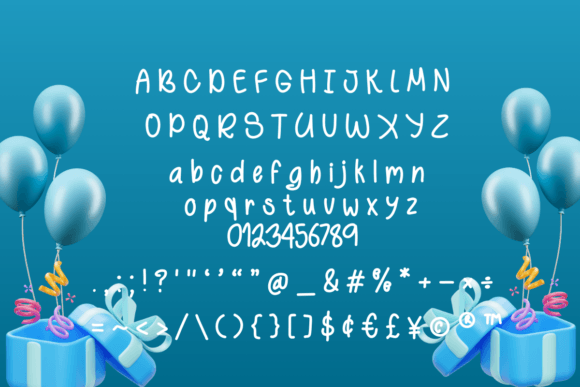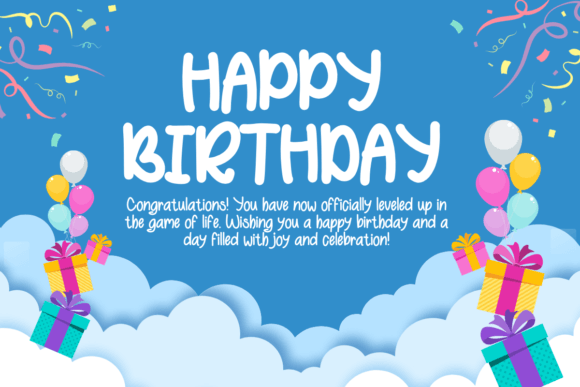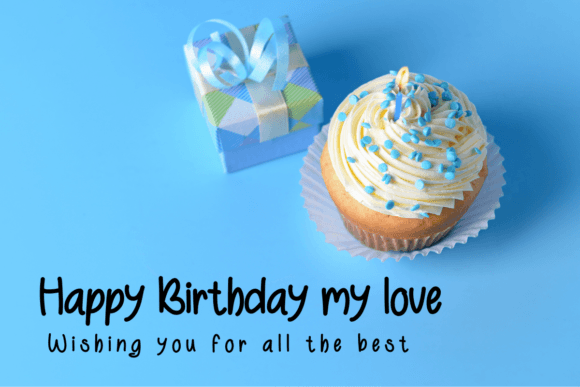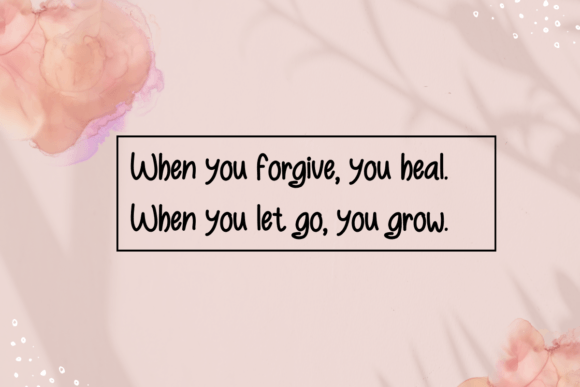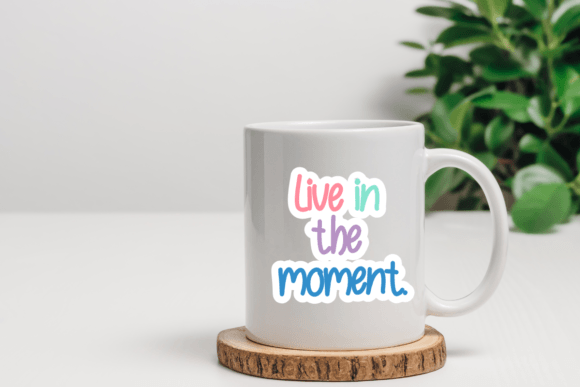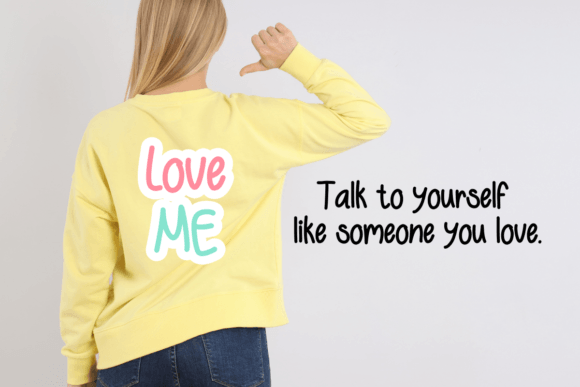
Introducing Birthday Pretty Font: The Perfect Handwritten Style for Your Creative Projects
Are you looking for a beautiful and elegant font to add a personal touch to your designs? Look no further than Birthday Pretty Font, a stunning handwritten font that’s perfect for a variety of creative projects. In this article, we’ll explore the features and benefits of Birthday Pretty Font, and show you can use it to take your designs to the next level.
What is Birthday Pretty Font?
Birthday Pretty Font is a gorgeous handwritten font that’s designed to add a touch of elegance and sophistication to your designs. With its flowing script and delicate lines, this font is perfect for creating beautiful and eye-catching text. Whether you’re a designer, crafter, or DIY enthusiast, Birthday Pretty Font is a versatile and easy-to-use font that can help you create stunning designs.
What Can I Use Birthday Pretty Font For?
The possibilities are endless with Birthday Pretty Font! This amazing font can be used for a wide range of creative projects, including:
- Taking notes: Add a personal touch to your notes and journals with Birthday Pretty Font.
- Writing a diary: Make your diary entries feel like a treasured keepsake with this beautiful font.
- Making greeting cards: Create stunning greeting cards for birthdays, holidays, and special occasions.
- Banners: Use Birthday Pretty Font to create eye-catching banners for parties, events, and promotions.
- Content: Add a touch of elegance to your website, blog, or social media posts with this beautiful font.
- Mugs: Create personalized mugs with Birthday Pretty Font for a unique and thoughtful gift.
- Cards: Design beautiful cards for any occasion, from birthdays to weddings.
- Shirts: Add a personal touch to your t-shirts, hoodies, and other apparel with Birthday Pretty Font.
- Stationery: Create stunning stationery, including letterheads, envelopes, and notecards.
- Social media posts: Make your social media posts stand out with this gorgeous font.
Why Choose Birthday Pretty Font?
So why choose Birthday Pretty Font for your creative projects? Here are just a few reasons:
- Unique and elegant design: Birthday Pretty Font has a unique and elegant design that’s sure to impress.
- Versatile: Birthday Pretty Font can be used for a wide range of creative projects.
- High-quality: This font is high-quality and designed to produce stunning results.
Tips for Using Birthday Pretty Font
Here are a few tips for using Birthday Pretty Font in your creative projects:
- Experiment with different colors: Try pairing Birthday Pretty Font with different colors to create a unique look.
- Mix and match: Combine Birthday Pretty Font with other fonts to create a stunning contrast.
- Use it sparingly: Use Birthday Pretty Font sparingly to add a touch of elegance to your designs.
- Play with sizes: Experiment with different font sizes to create visual interest.
Birthday Pretty Font is a stunning handwritten font that’s perfect for designers, crafters, and DIY enthusiasts. With its elegant design and versatility, this font can be used for a wide range of creative projects. Whether you’re creating greeting cards, banners, or social media posts, Birthday Pretty Font is sure to add a touch of sophistication and elegance. So why wait? Download Birthday Pretty Font today and start creating stunning designs!